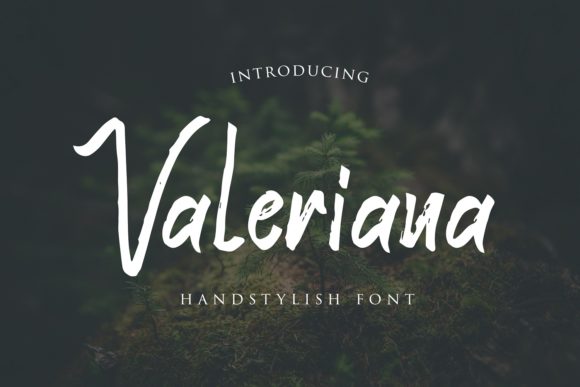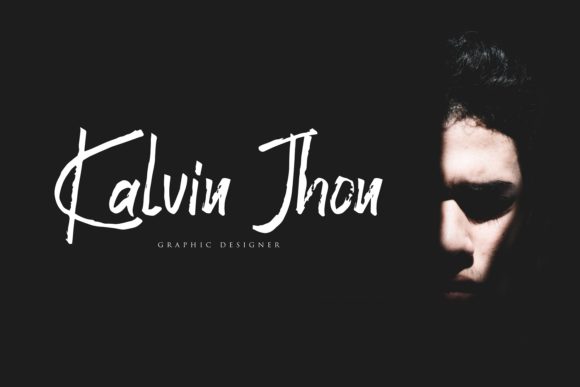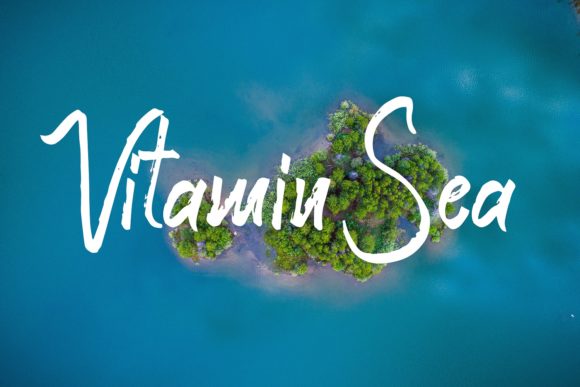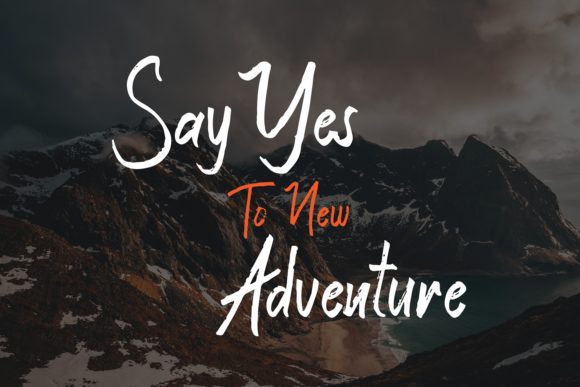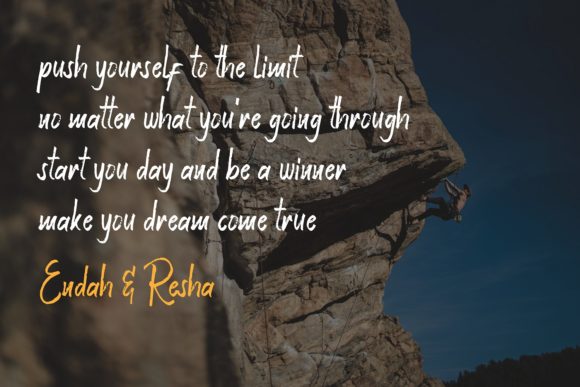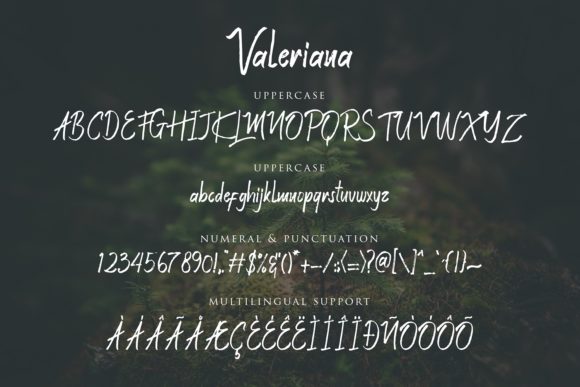
Valeriana Font
About Valeriana Font
The Valeriana is a handwritten brush typeface. It’s perfect for logos, printed quotes, invitations, cards, and much more!